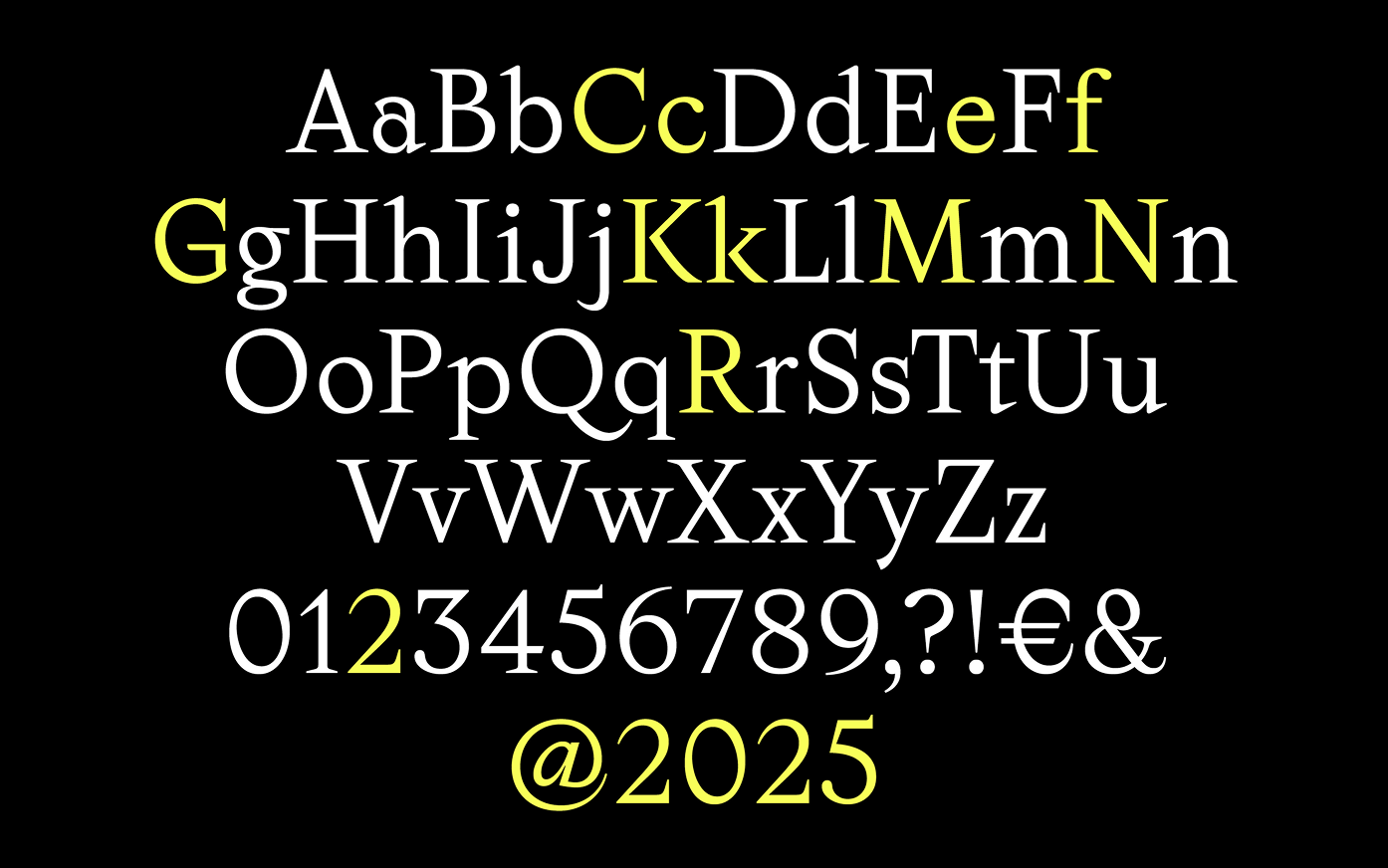
Aguzzo Collection: 7 Weights, 14 Styles
The sharpest tool in the shed!
Augustea by Fonderie Nebiolo, Alessandro Butti 1951
Lead hotmetal forms 36 pt, Source
Specimen, Augustea: A Nebiolo Typeface 1957
This page, especially with the focus on the triangular dots and the enclosed figure “2” – is what inspired Kasper Pyndt Rasmussen in the design of the Aguzzo typeface. Source
Augustea by Alessandro Butti, Nebiolo Foundry (Turin)
Butti also designed lowercase letters, but they were never released. According to his assistant Ennio Lavagno, they were drawn in India ink around 1951. Source
Nova Augustea by Aldo Novarese, 1964
Nova Augustea, published by Nebiolo in 1964 and designed by Aldo Novarese, revives Roman capitals first drawn by his teacher Alessandro Butti. Source
Nova Augustea by Aldo Novarese, specimen 1966
Type Face – the classic of the classics, folded pamphlet with 3-color printing. Source
Aguzzo by Kasper Pyndt Rasmussen, 2015
Danish designer Kasper took a fresh approach to historical predecessors and, in 2015, brought his own original interpretation to light.
Aguzzo by Kasper and Martin, 2024
Around 2024, Martin from Displaay reached out to Kasper with an offer to expand the typeface originally just a Regular style – into a full family, and to suggest a few refinements. That’s how the collaboration began. And now, here’s the final result.
Kasper and Displaay revisions
At Displaay, we were mainly unsure about the terminals of the “K, k, R” letters — they’re highly original, but could also be interpreted as errors. So we suggested refining those details, along with a few other minor adjustments, like balancing the “C, c, e” letters.
Aguzzo is quite loosely related to Alessandro Butti’s and Aldo Novarese’s Augustea (Fonderia Nebiolo) from 1951, an engravers-style typeface based on the Roman capitals, notable for its triangular punctuation and enclosed figure “2”—features which are highlighted as alternate stylistic character sets in Aguzzo.
This is, however, where the similarities end: Aguzzo combines rigorously carved geometry with more transitional traits, making it stand on its own two feet (pun intended). Additionally, the upright styles’ sharp expression is mirrored in the steep 16° inclination of the Italic whose introduction of a variety of broad-nib flourishes nicely contrasts the upright styles. The typeface’s occasionally unusual letterforms, yet high degree of legibility, makes Aguzzo suited for use in a multitude of sizes and contexts.